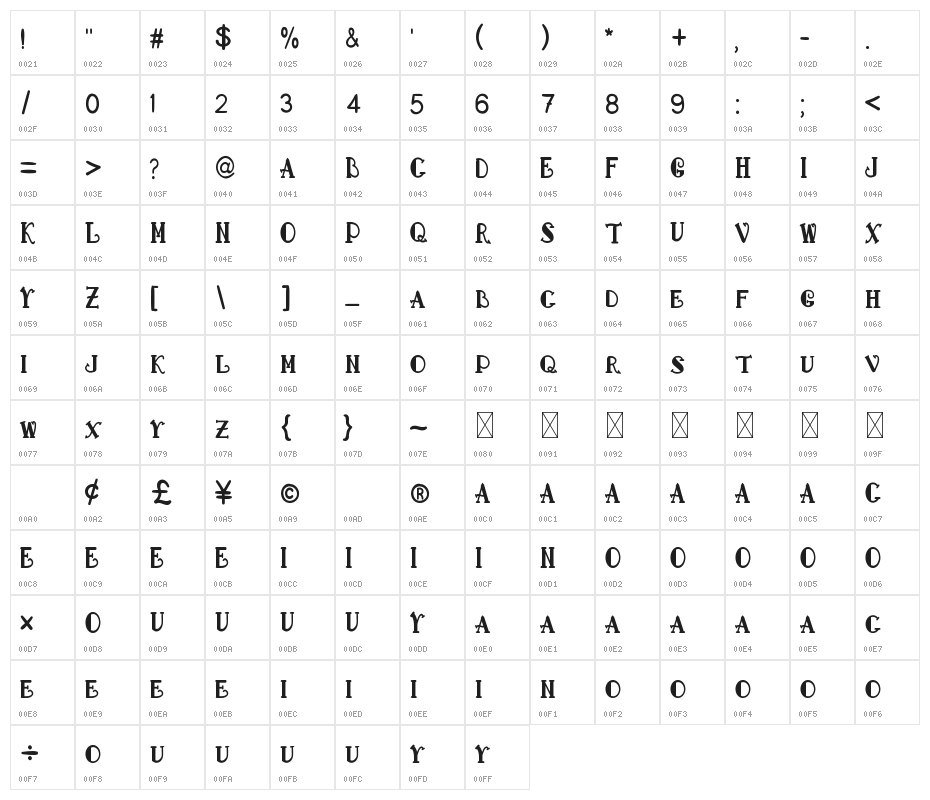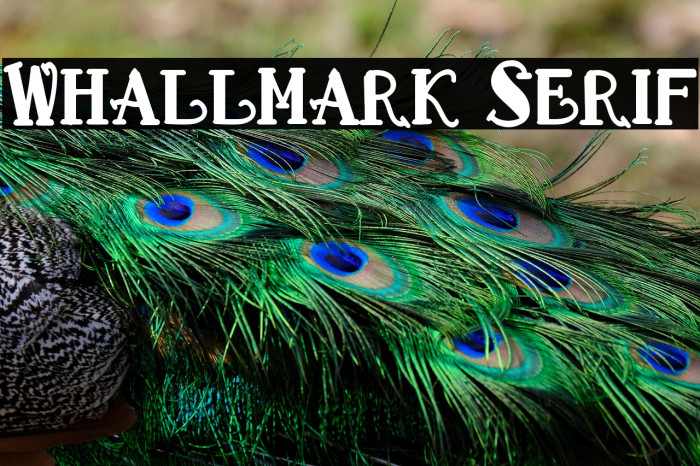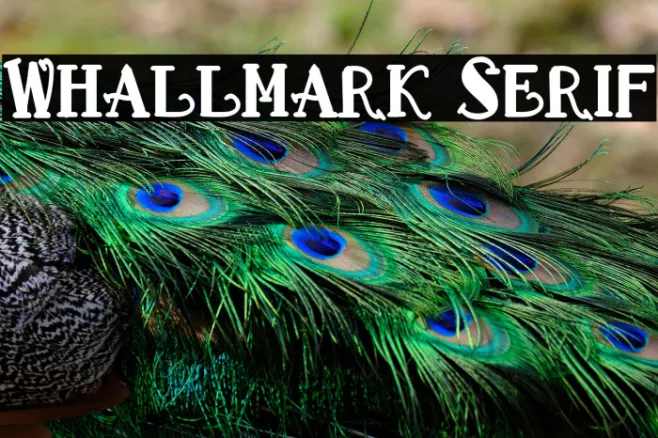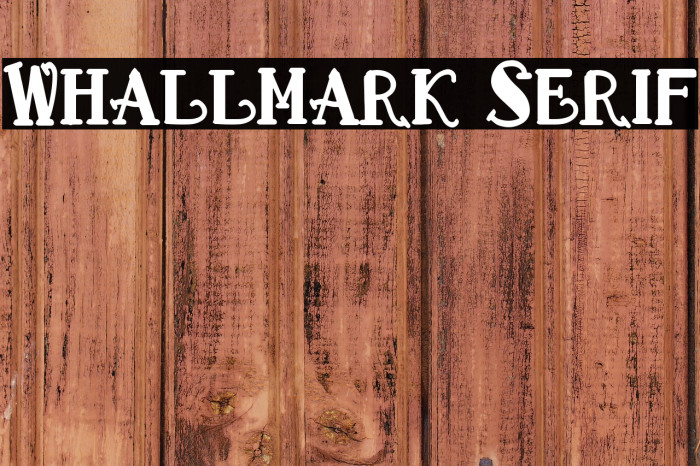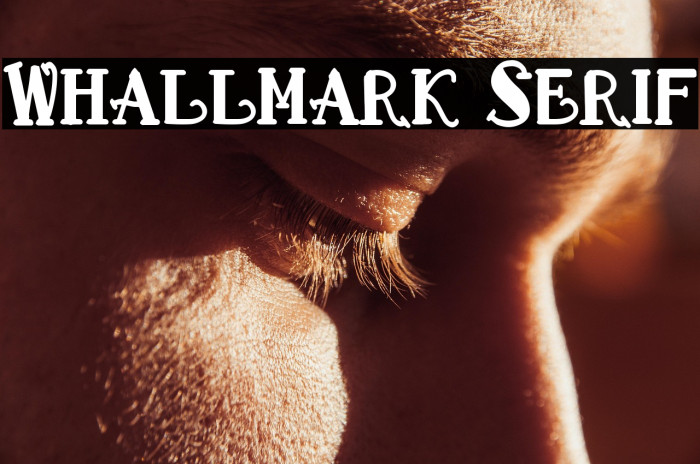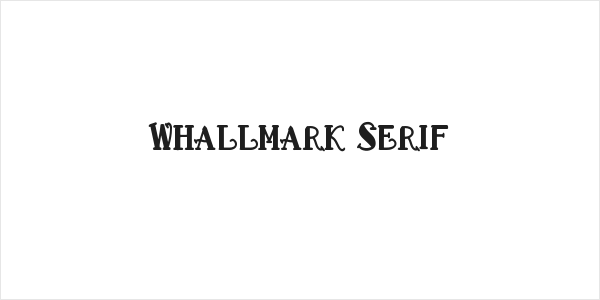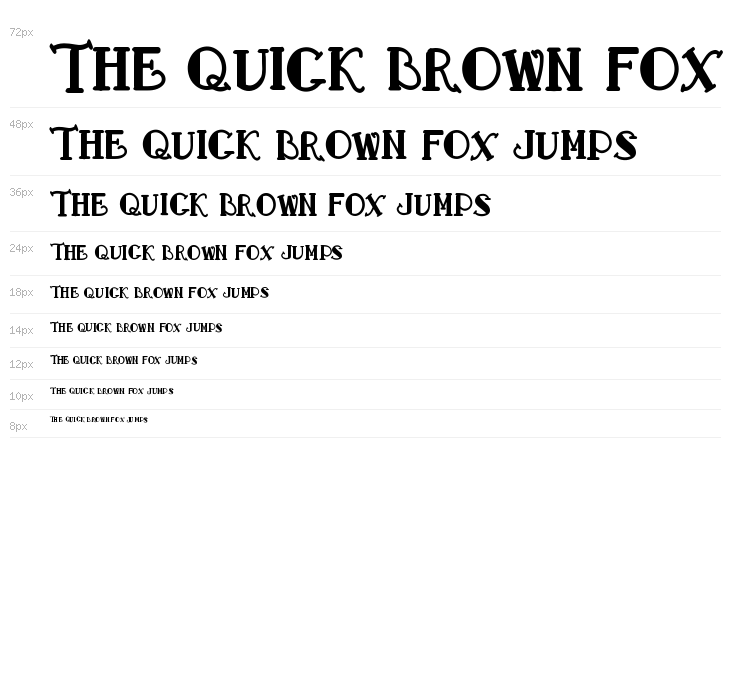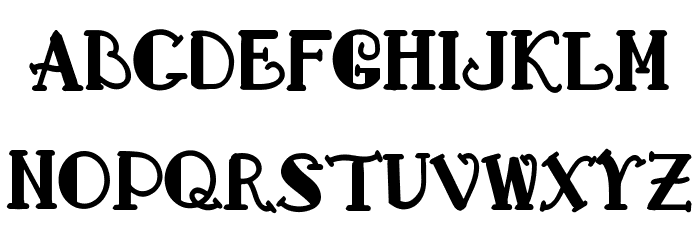
Whallmark Serif Font
Whallmark Serif Description
This font features a distinctive serif style with ornate and decorative elements. Each character is crafted with unique flourishes, giving it a whimsical and artistic appearance. The uppercase letters are bold and prominent, while the lowercase letters maintain a consistent style with slightly less embellishment. Numbers and special characters are designed to match the overall aesthetic, ensuring a cohesive look across all text. The font's playful yet elegant design makes it suitable for creative projects that require a touch of sophistication and flair.
| Proposed Projects | Ideal for invitations, greeting cards, branding, and artistic posters. |